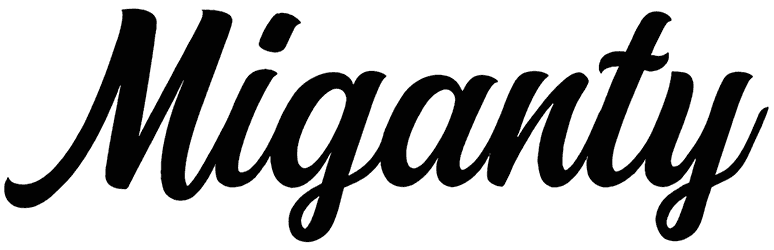
Miganty Font
Every time you require a simple way to create a gorgeous romantic sense in your context, just try an invitation font. Miganty is a brilliant choice to start with, and it would work perfectly for Valentine’s cards, wedding invitations, branding, and even packaging.
The look of this font isn’t its only plus side, you also get a collection of all the letters containing the uppercase, lowercase, numbers, and punctuation marks.